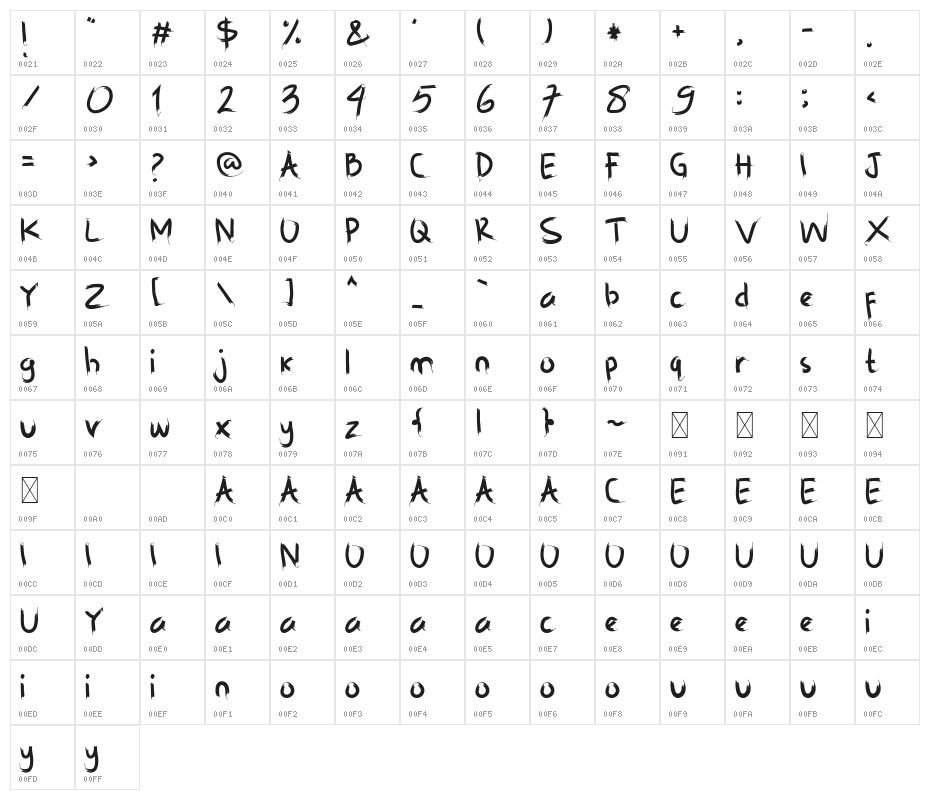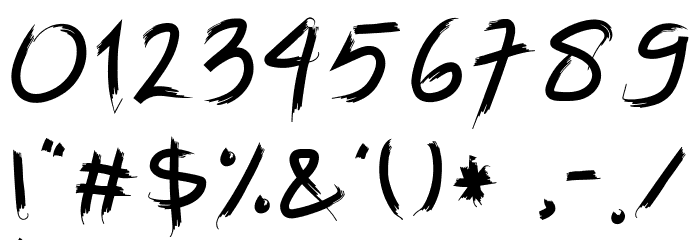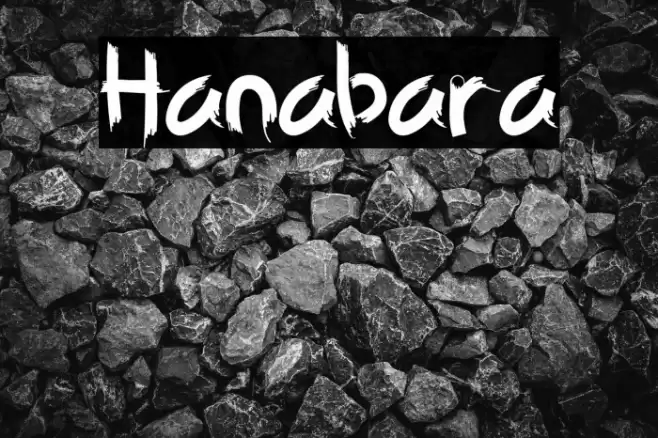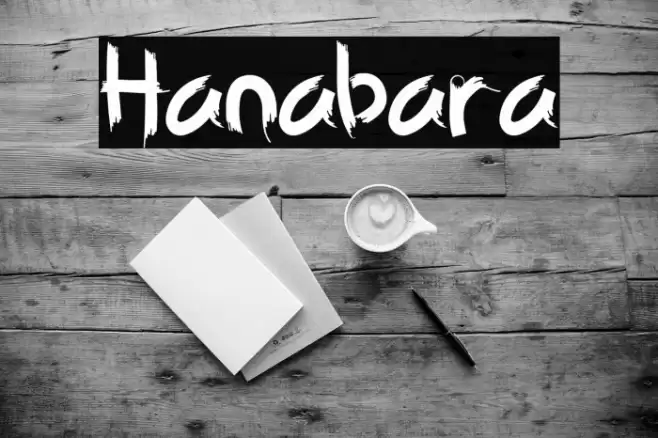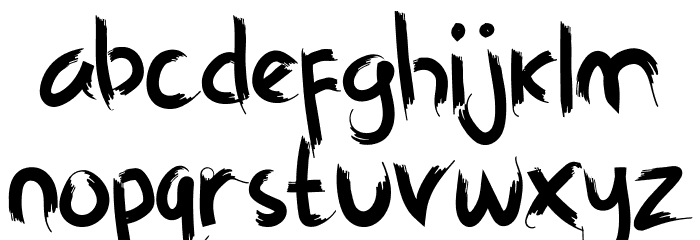
Hanabara Font
| Stile generale | Modern, Artistic |
| Progetti proposti | Ideal for artistic projects, posters, album covers, and branding that seeks a bold and expressive look. |